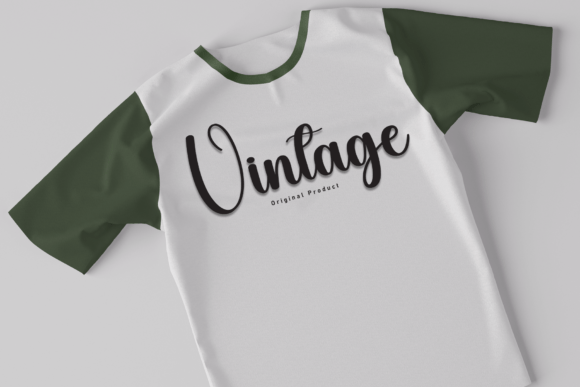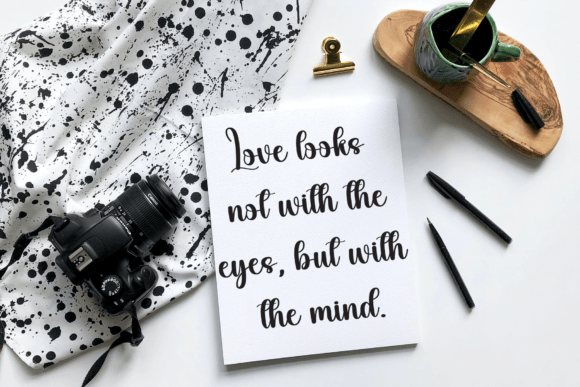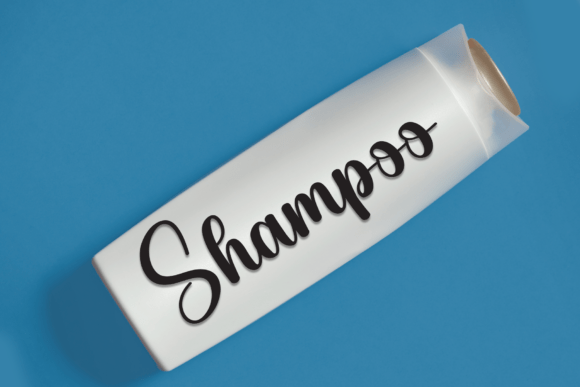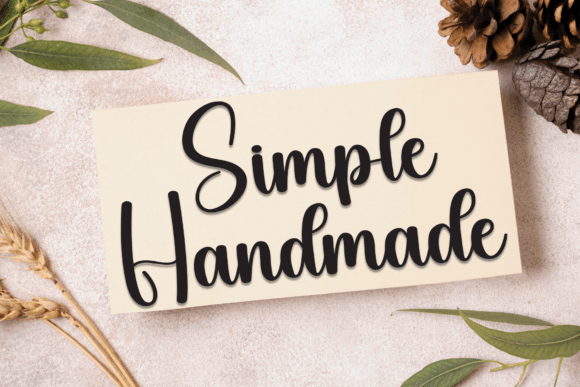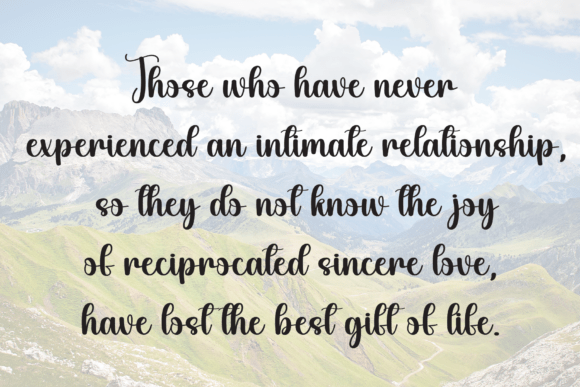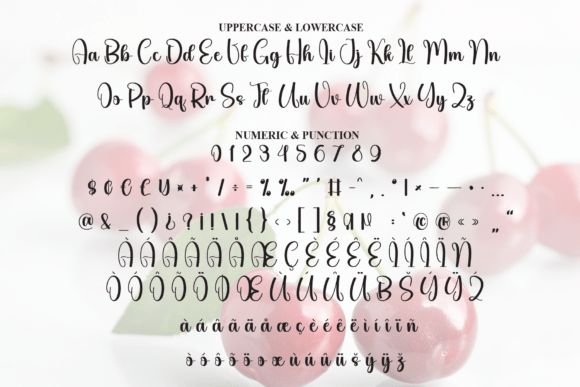
Introducing Cherry Font: Elevate Your Designs with Elegance and Charm
In the world of typography, few fonts manage to capture the essence of elegance and charm as effortlessly as Cherry Font. This stylish handwritten script font is designed to bring a touch of sophistication and personal flair to any design project. Whether you’re working on branding, invitations, stationery, or any other creative endeavor, Cherry Font is the perfect choice for those seeking a refined and timeless look.
The Beauty of Cherry Font
Cherry Font boasts fluid, graceful strokes that dance across the page, exuding a sense of luxury and refinement. Its smooth curves and natural flow create a beautiful, organic feel that is both visually appealing and engaging. The font’s elegant appearance makes it an excellent choice for designs that require a high level of sophistication, such as:
- Branding: Create a lasting impression with Cherry Font’s unique and memorable style.
- Invitations: Add a touch of elegance to your wedding invitations, party invites, or any other special occasion.
- Stationery: Elevate your letterheads, business cards, and notebooks with Cherry Font’s refined charm.
What Makes Cherry Font Stand Out?
So, what sets Cherry Font apart from other script fonts? Here are a few key features that make it a standout choice:
- Fluid strokes: Cherry Font’s fluid strokes create a sense of movement and fluidity, making it perfect for designs that require a dynamic feel.
- Smooth curves: The font’s smooth curves and rounded edges create a soft, approachable look that is both elegant and inviting.
- Natural flow: Cherry Font’s natural flow makes it easy to read and understand, even at smaller font sizes.
- Timeless appeal: Unlike trendy fonts that quickly go out of style, Cherry Font’s classic design ensures it will remain relevant for years to come.
Cherry Font is a stylish and elegant handwritten script font that is sure to elevate your designs to the next level. With its fluid strokes, smooth curves, and natural flow, it’s the perfect choice for anyone seeking a refined and timeless look. Whether you’re a graphic designer, stationery designer, or crafter, Cherry Font is an excellent addition to your typography toolkit. So why wait? Discover the beauty of Cherry Font today and bring a touch of elegance and charm to your designs!